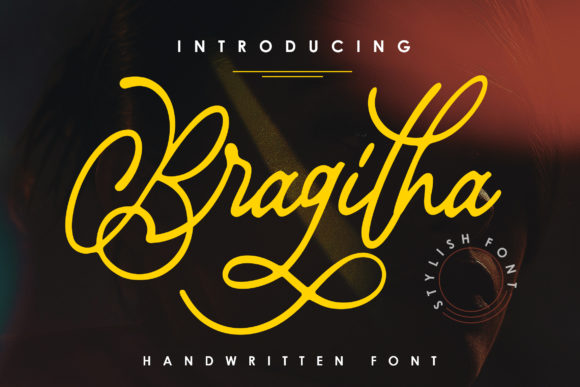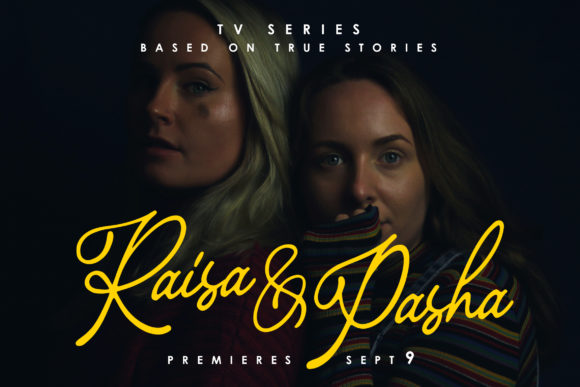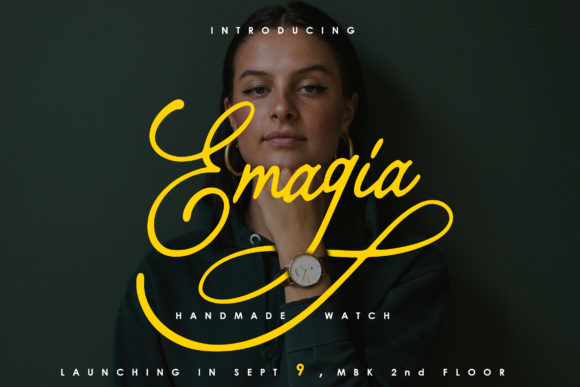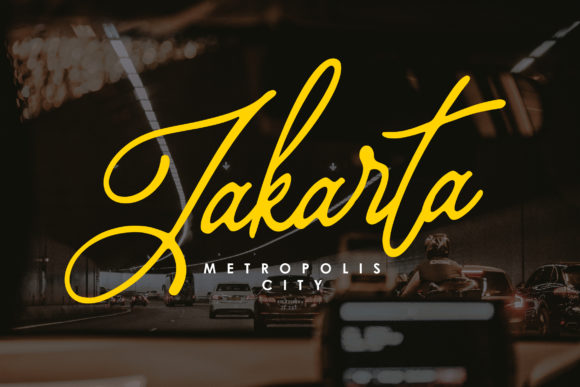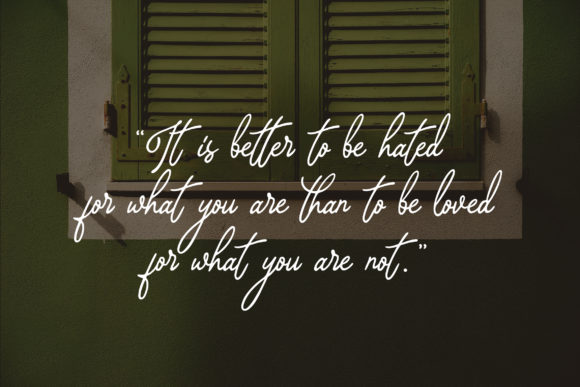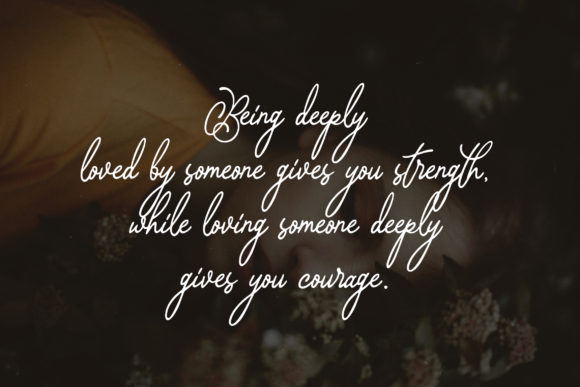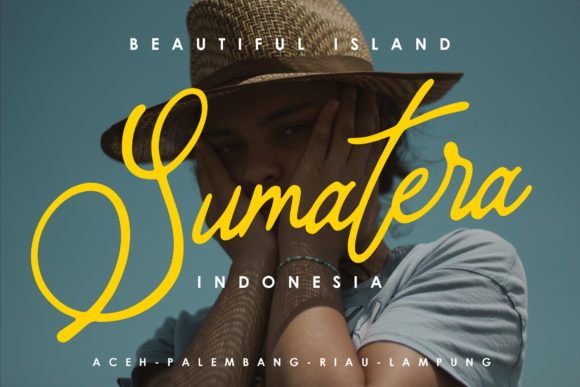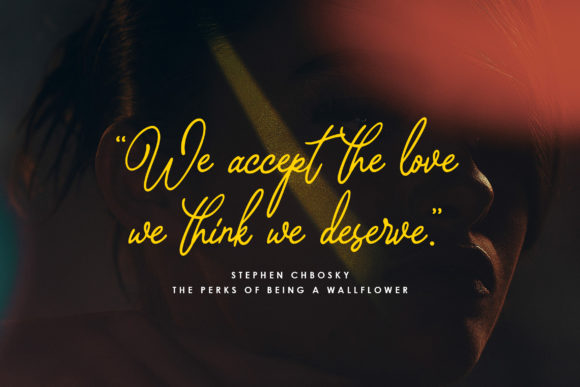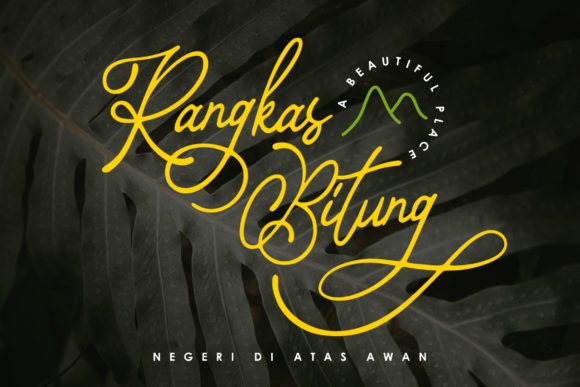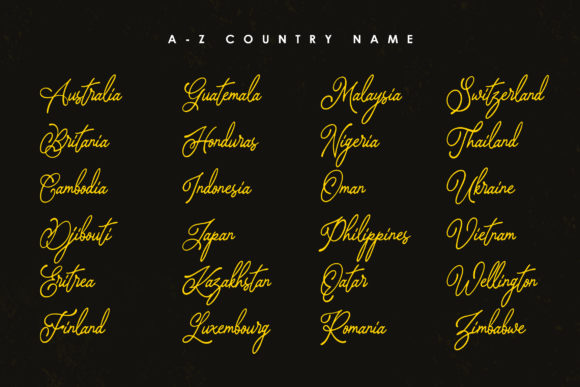
Bragitha Font
About Bragitha Font
Bragitha is a brand new stylish handwritten font.
This creative font can be used for various media applications and special events like weddings, logos, posters, book titles and much more.